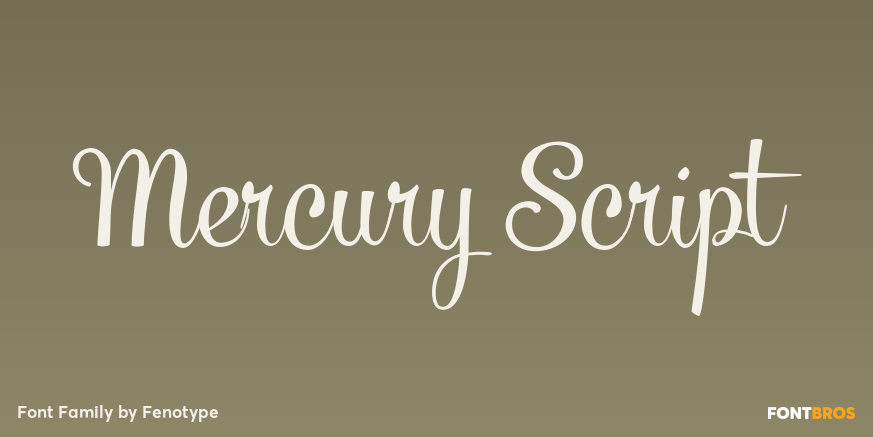
Mercury Script
About Mercury Script
Mercury Script is an action packed type family of three weigths. Click on Swash, Contextual or Stylistic alternates in any Open type savvy application for plenty of extra grooviness and combine with Mercury Ornaments for superb results. Turn on Small…